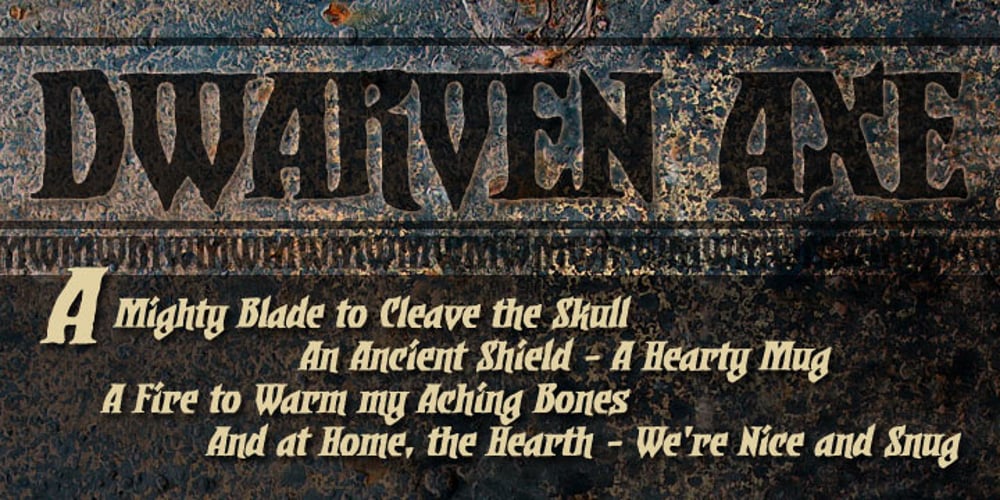
Dwarven Axe BB
Dwarven Axe BB font
Dwarven Axe BB Font Family was designed by Nate Piekos and published by Blambot. Dwarven Axe BB contains 4 styles and family package options. Dwarven Axe is a weathered, serif title font with grit and stamina. It’s the rusty sign outside an inn full of hobbits—it’s the worn brass letters on the cover of a wizard’s spellbook—it’s the inscription on the battle axe hanging over the dwarf king’s hearth. Contains upper and lowercase characters, with italic included, and a treasure trove of European characters.